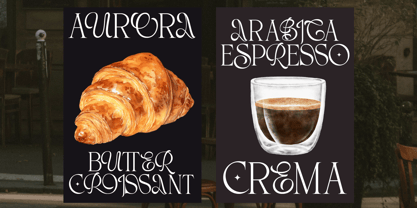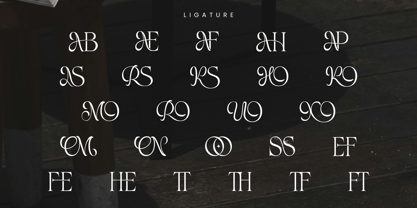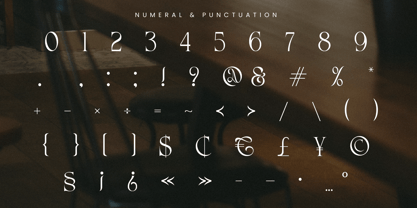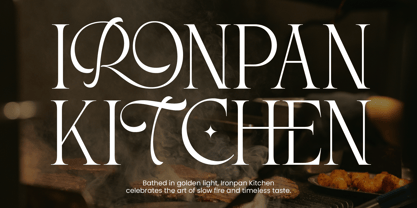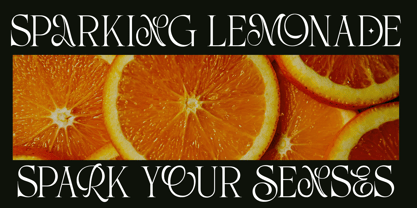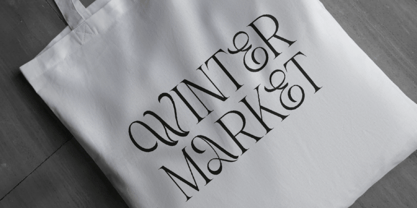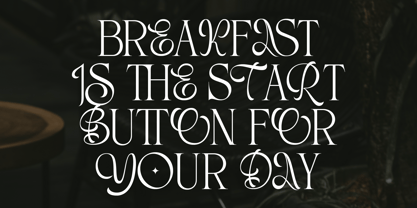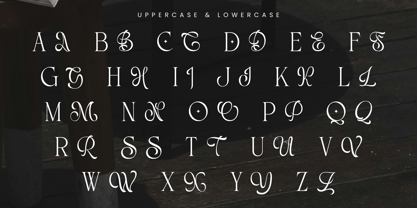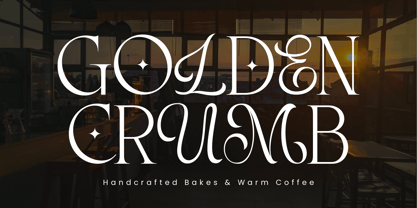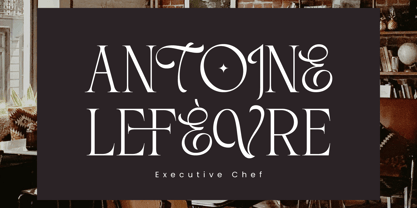
Horia Garden
The Horia Garden Font Family was designed by Randi Irvan and published by Rvandtype. Horia Garden contains 1 styles.
Horia Garden is a luxury serif display font crafted to bring refined elegance and artistic flavor to food and lifestyle branding. Each letter is thoughtfully designed with graceful curves and timeless details, blending sophistication and warmth in perfect harmony. Inspired by the charm of golden cafés, artisan bakeries, and fine dining aesthetics, this font captures the essence of taste, light, and luxury. With its delicate flourishes and meticulously balanced forms, Horia Garden evokes a sense of indulgence, refinement, and everlasting beauty — more than just typography, it’s a feast for the eyes. Ideal for premium café logos, restaurant menus, dessert packaging, and coffee brands, this font elevates every design into an experience of visual flavor.